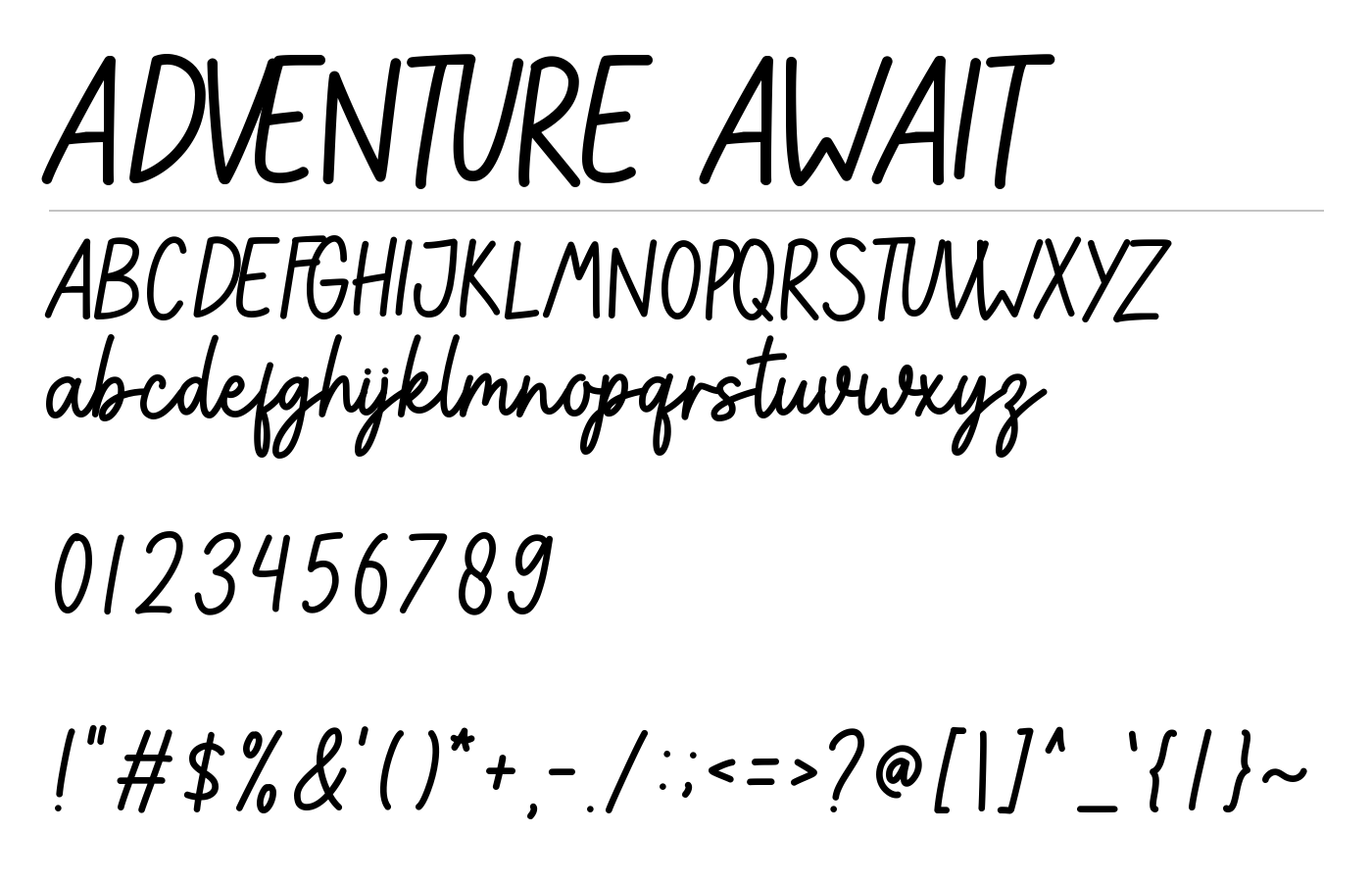
Adventure Await is a playful and casual sans serif font with a hand-drawn feel, featuring tall, narrow letterforms and smooth, flowing strokes that give it an approachable and energetic personality. Its clean lines and slightly irregular shapes make it perfect for designs that want to convey fun, creativity, and a sense of adventure, making it ideal for logos, invitations, or lifestyle branding. This font’s friendly and informal style works well in both headlines and short texts where a personal, expressive touch is desired.
ADVENTURE AWAIT Font
About ADVENTURE AWAIT Font